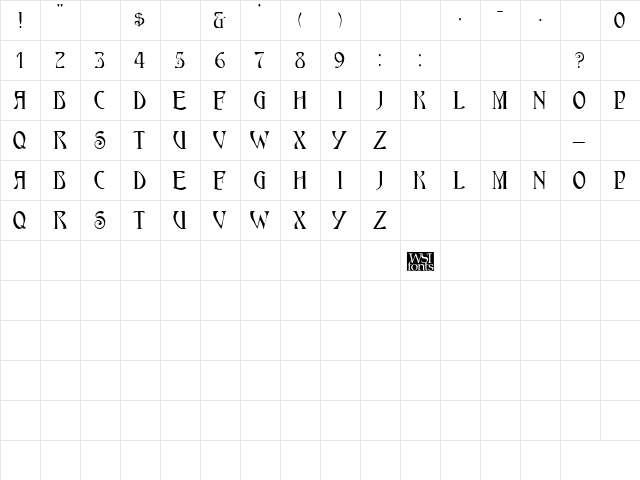
HardinCapsWide Regular
Design Context for HardinCapsWide Typeface
HardinCapsWide is a composed and adaptable typeface that performs quietly and consistently across a wide range of design contexts.